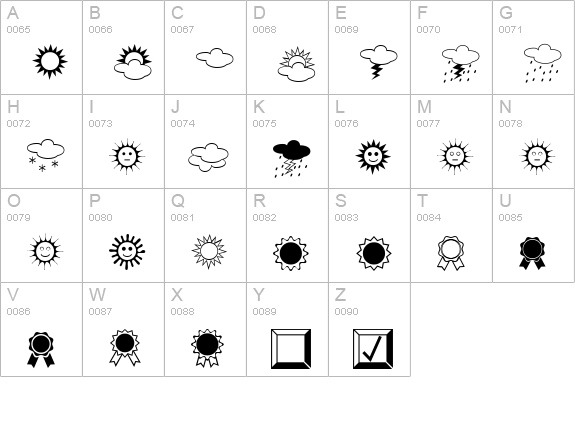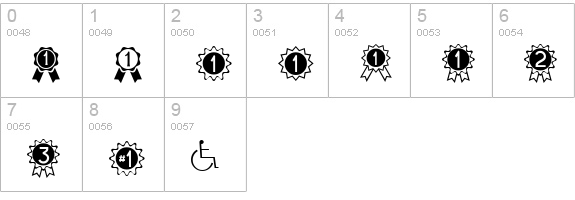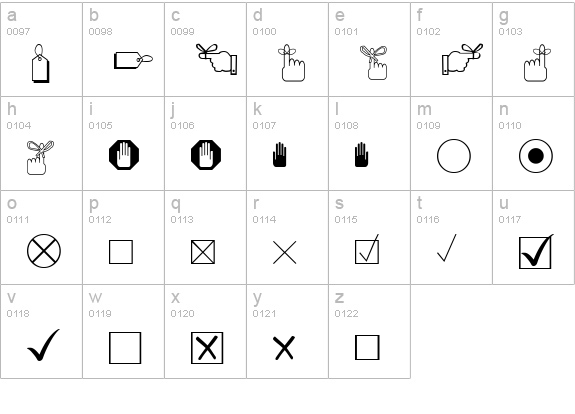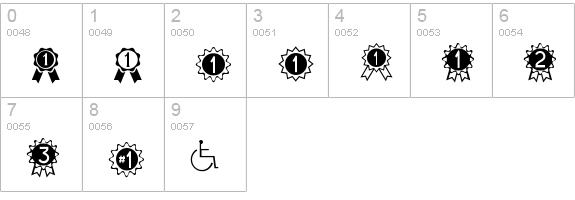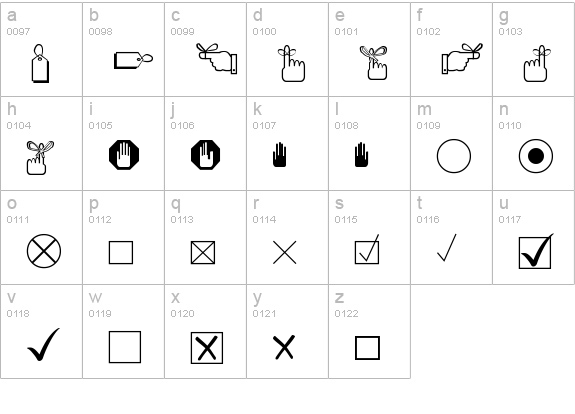
XIngyDingTwo is a whimsical and quirky font that is sure to add a touch of playfulness to any project. The unique characters and intricate details make this font stand out from the crowd. With its fun and lively design, XIngyDingTwo is perfect for creative projects such as posters, invitations, and branding materials. Best of all, XIngyDingTwo is available for free download at FontsMarket.com. This means that you can enjoy all the charm and character of this font without having to spend a dime. So go ahead and download XIngyDingTwo today to add a touch of whimsy to your next design project!